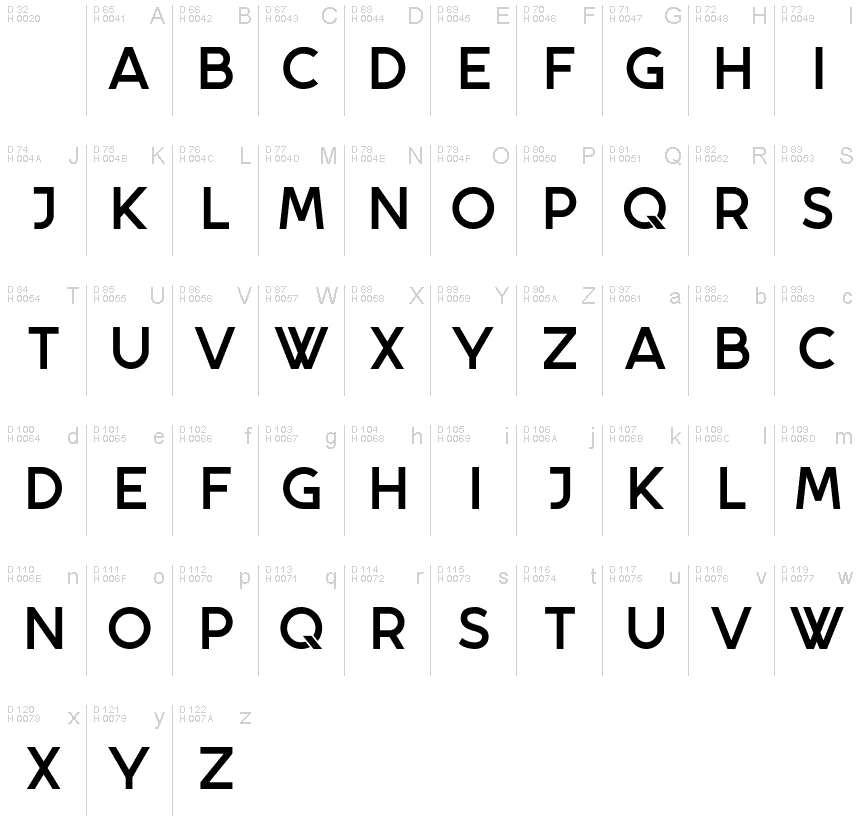
Provato Regular
The Provato font, designed by Vladimir Nikolic, is a captivating sans serif typeface with a semi-expanded width. Its clean and modern design offers versatility in various creative projects.
With its balanced letterforms and legible appearance, Provato is perfect for branding materials, such as logos, business cards, and packaging designs. This font also shines in editorial layouts for magazines or books, providing an elegant yet readable style. Additionally, Provato adds a touch of sophistication to website headers and user interfaces, making it an excellent choice for digital projects seeking a contemporary aesthetic.